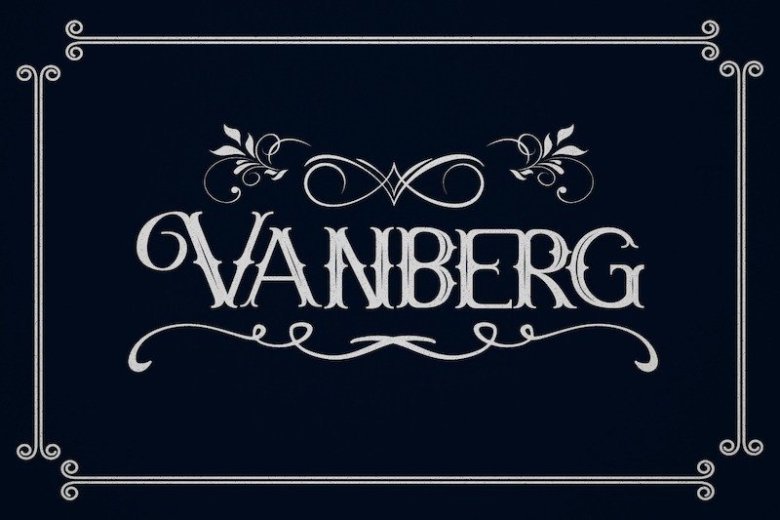
Vanberg Font
Vanberg Display Font is a vintage display typeface with the touch of retro feel yet still looks luxury in a modern design concept. It’s designed and shared by Maulana Creative. Vanberg Vintage is a handmade Modern Victorian handlettering, which is combining modern and classic typography with some awesome alternates.